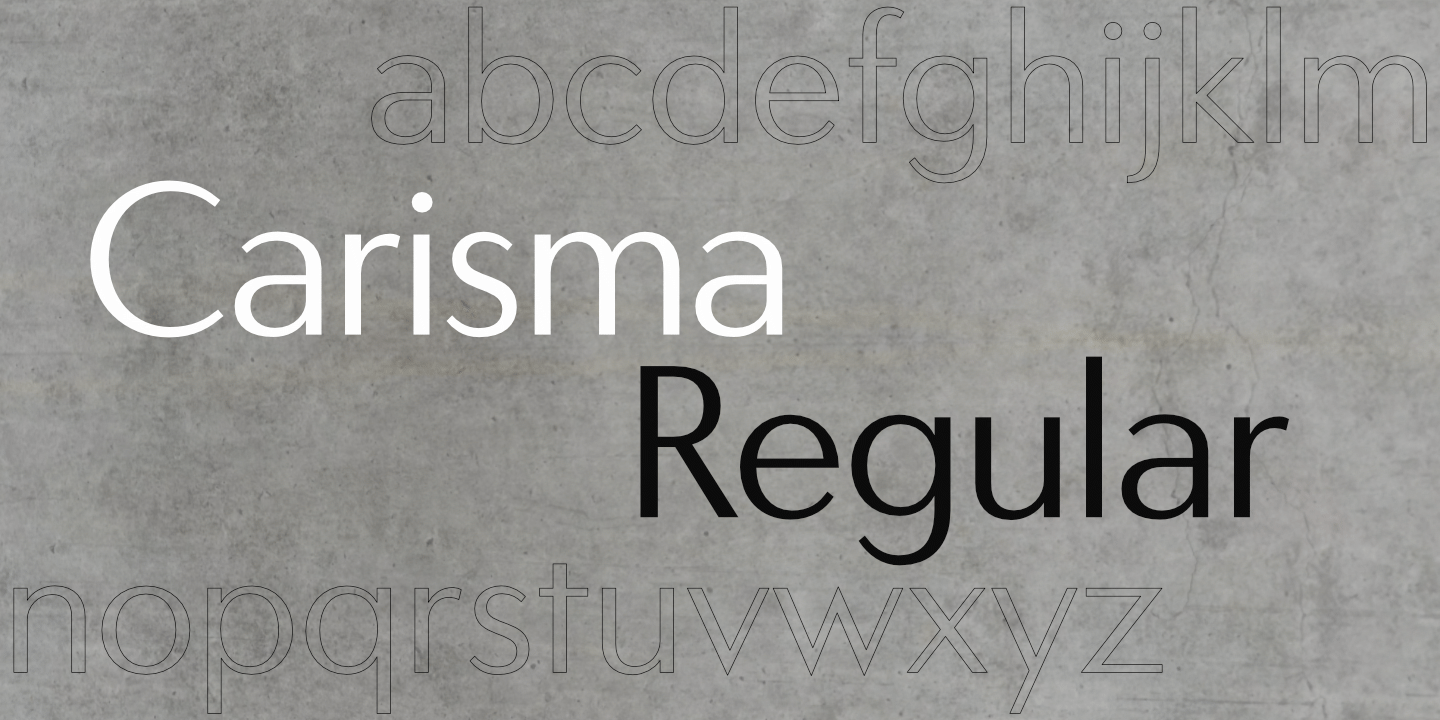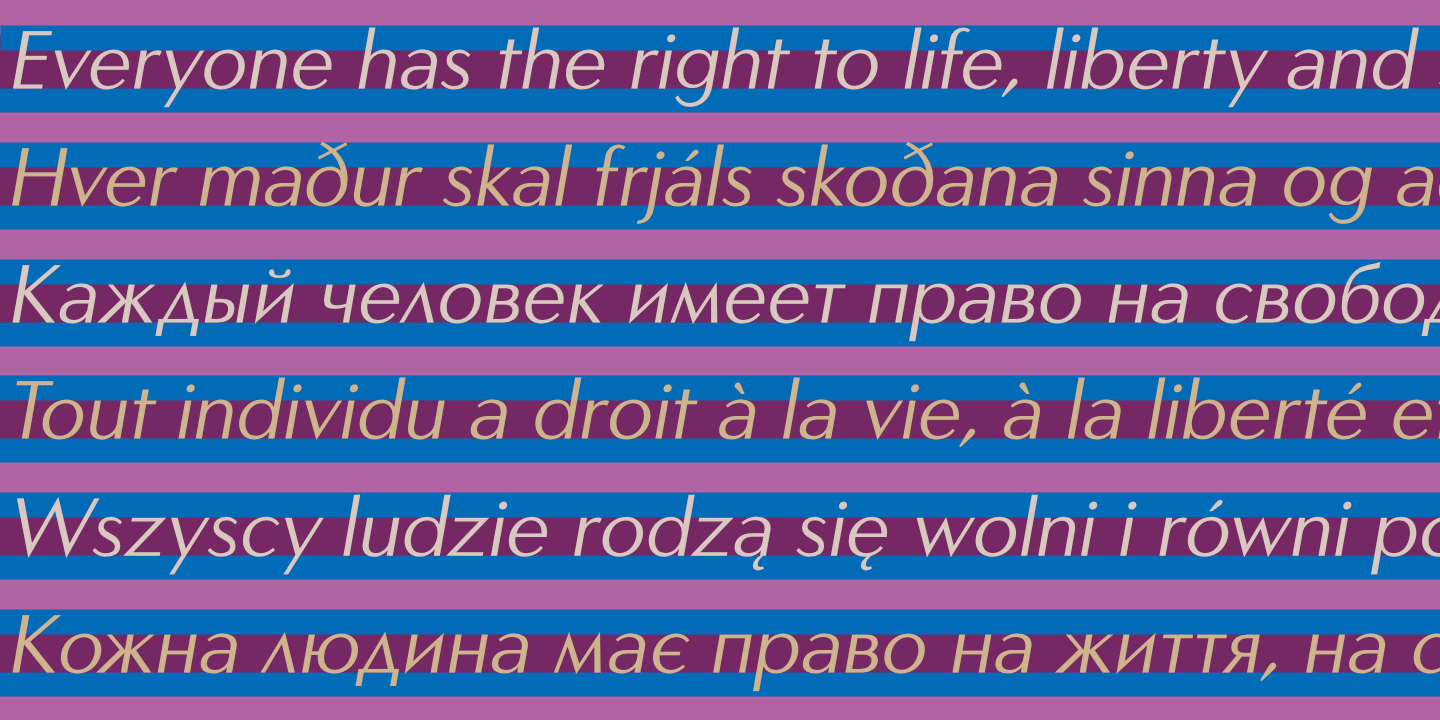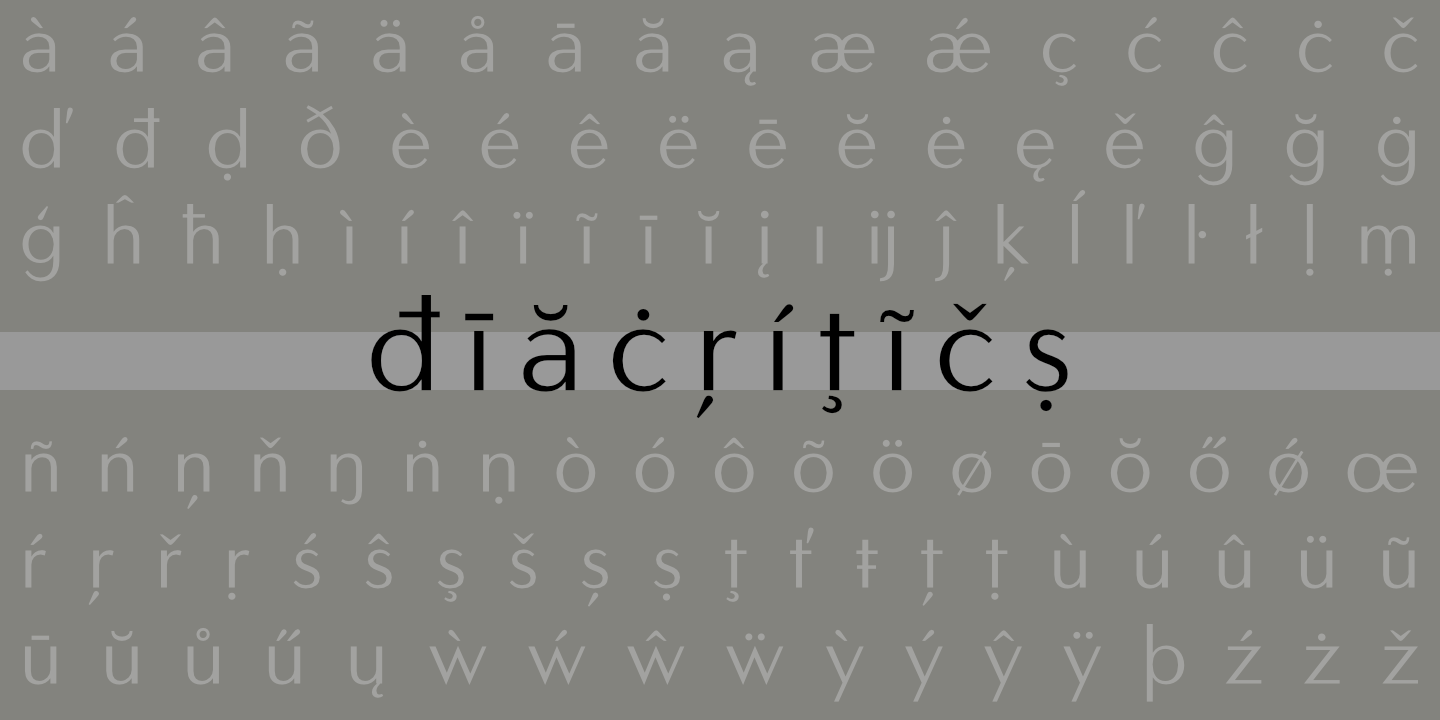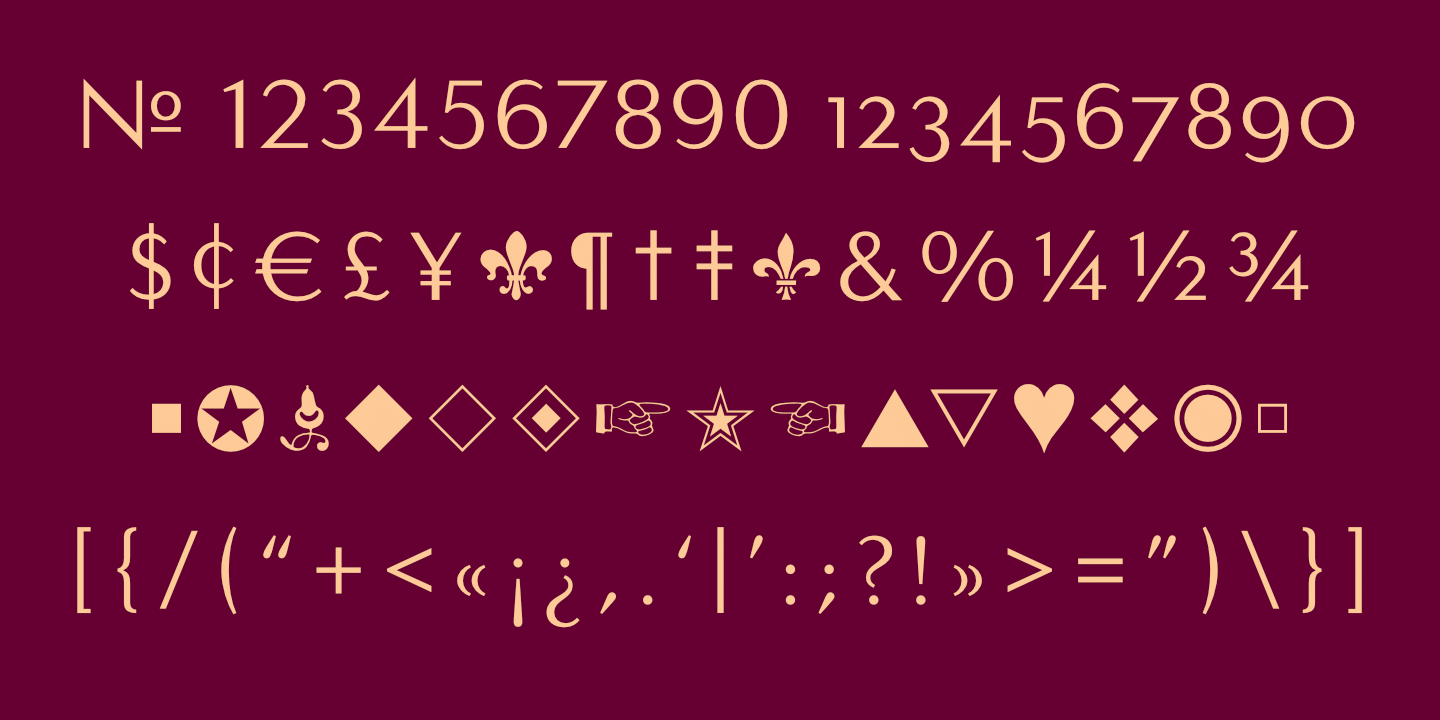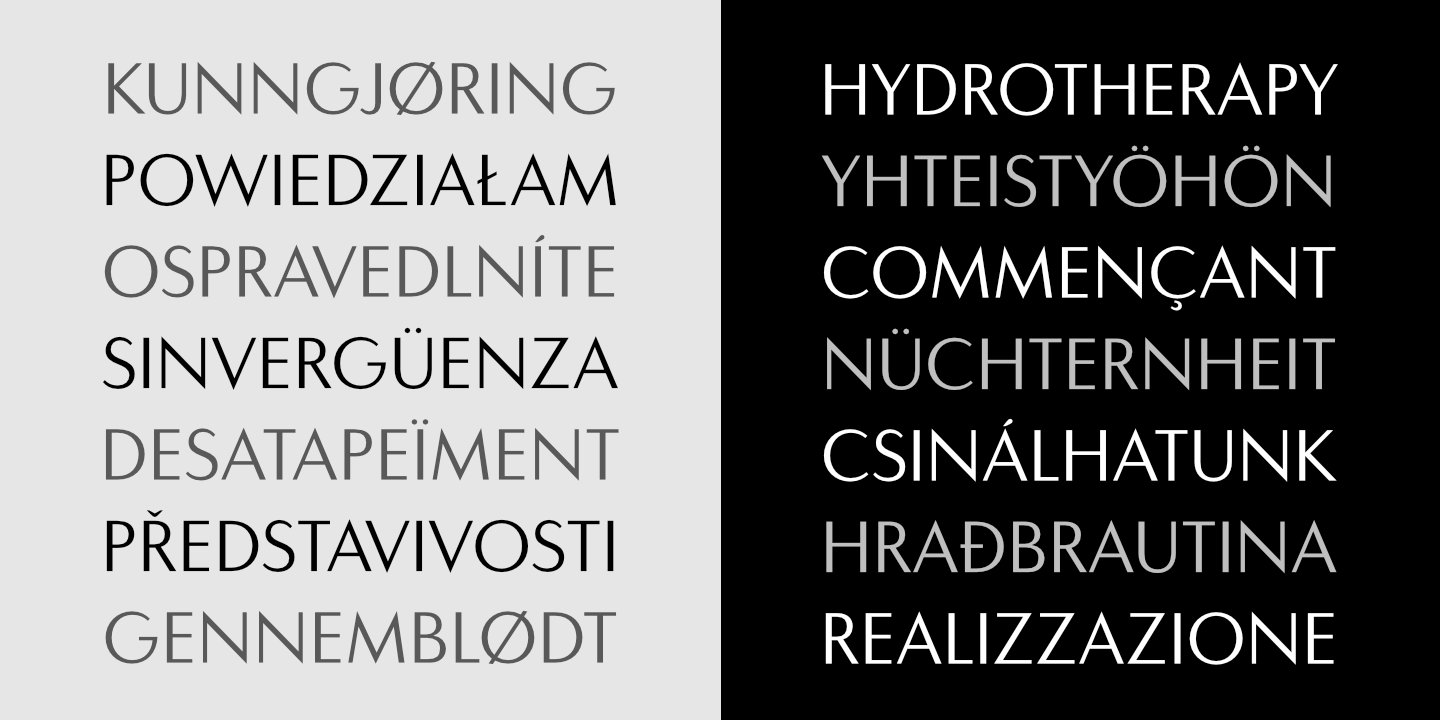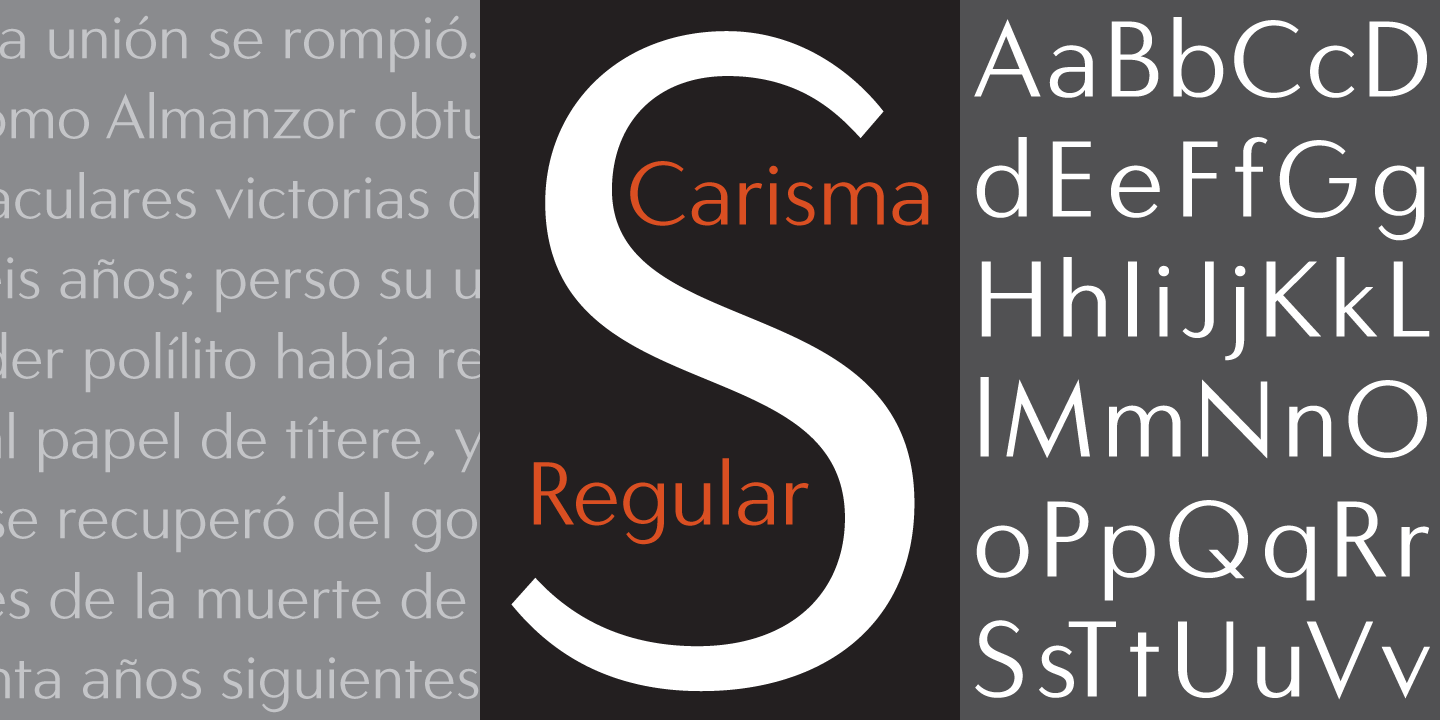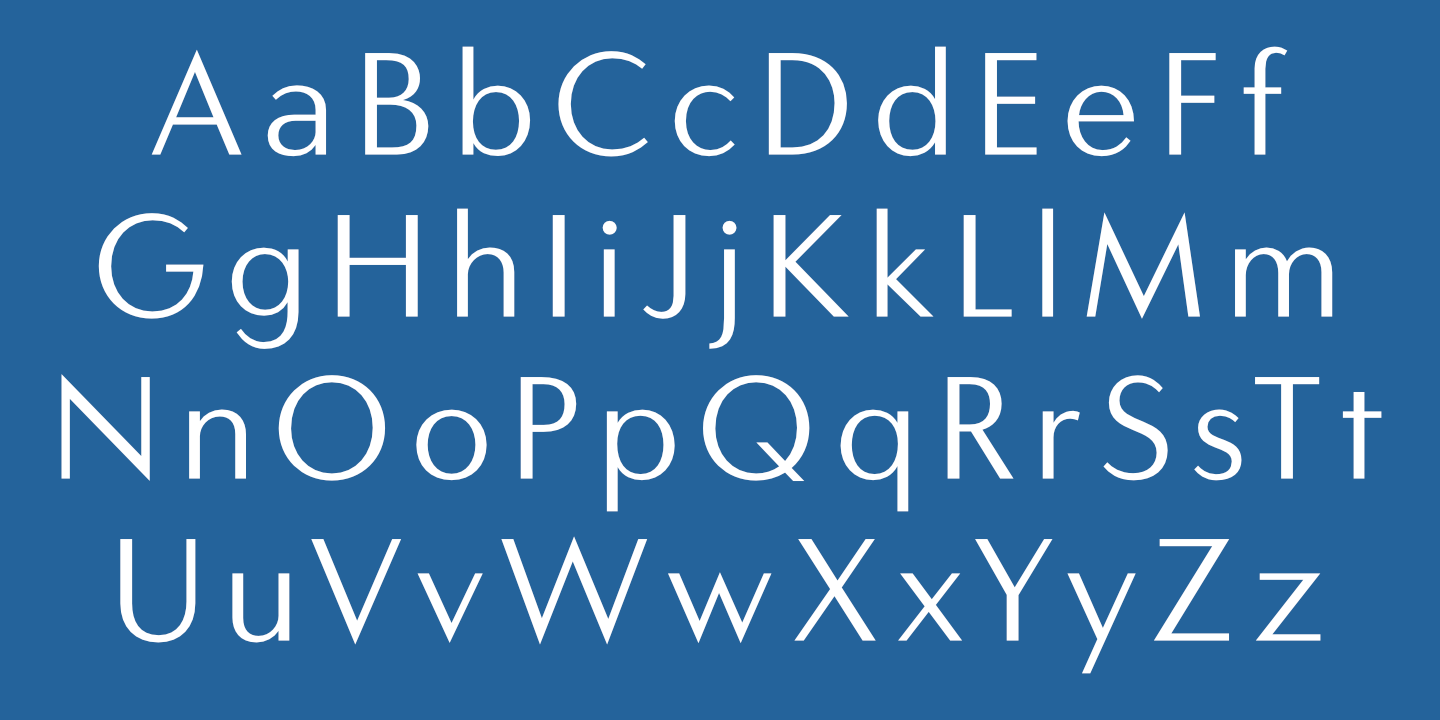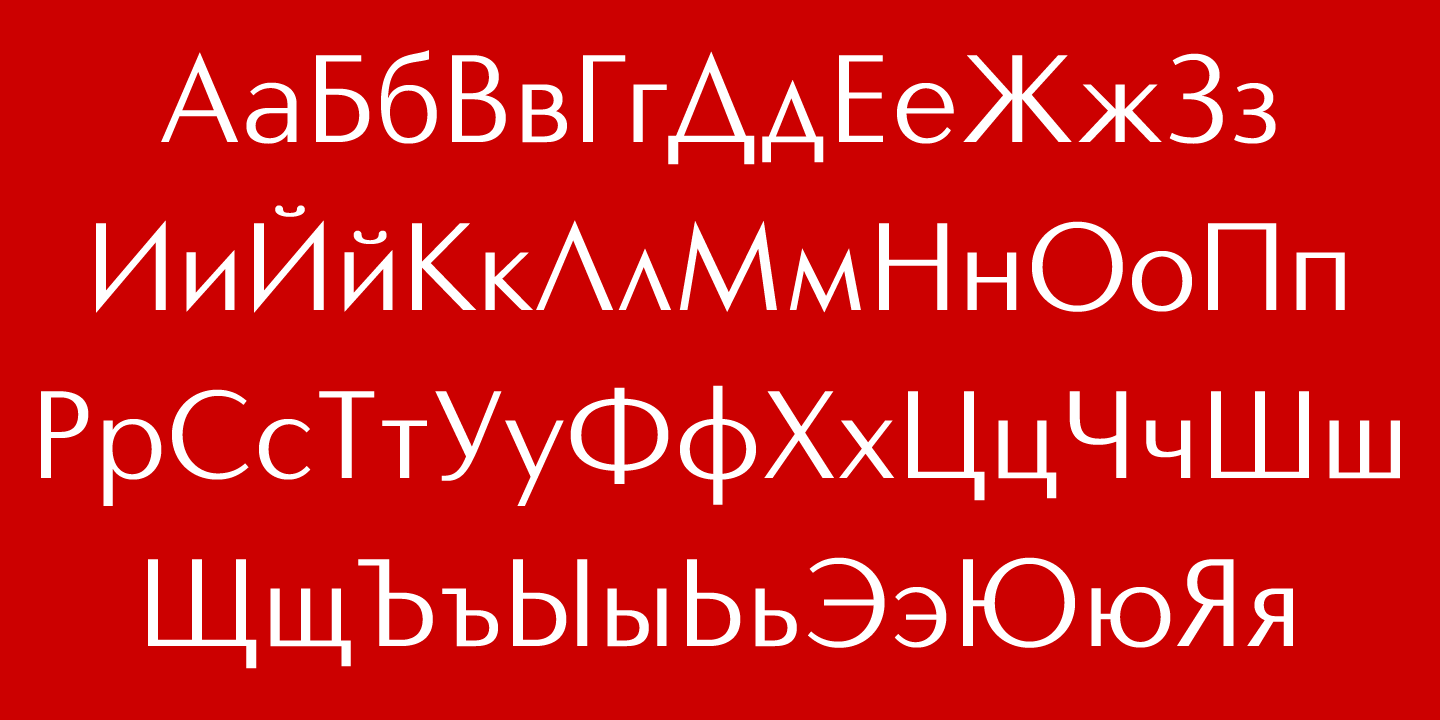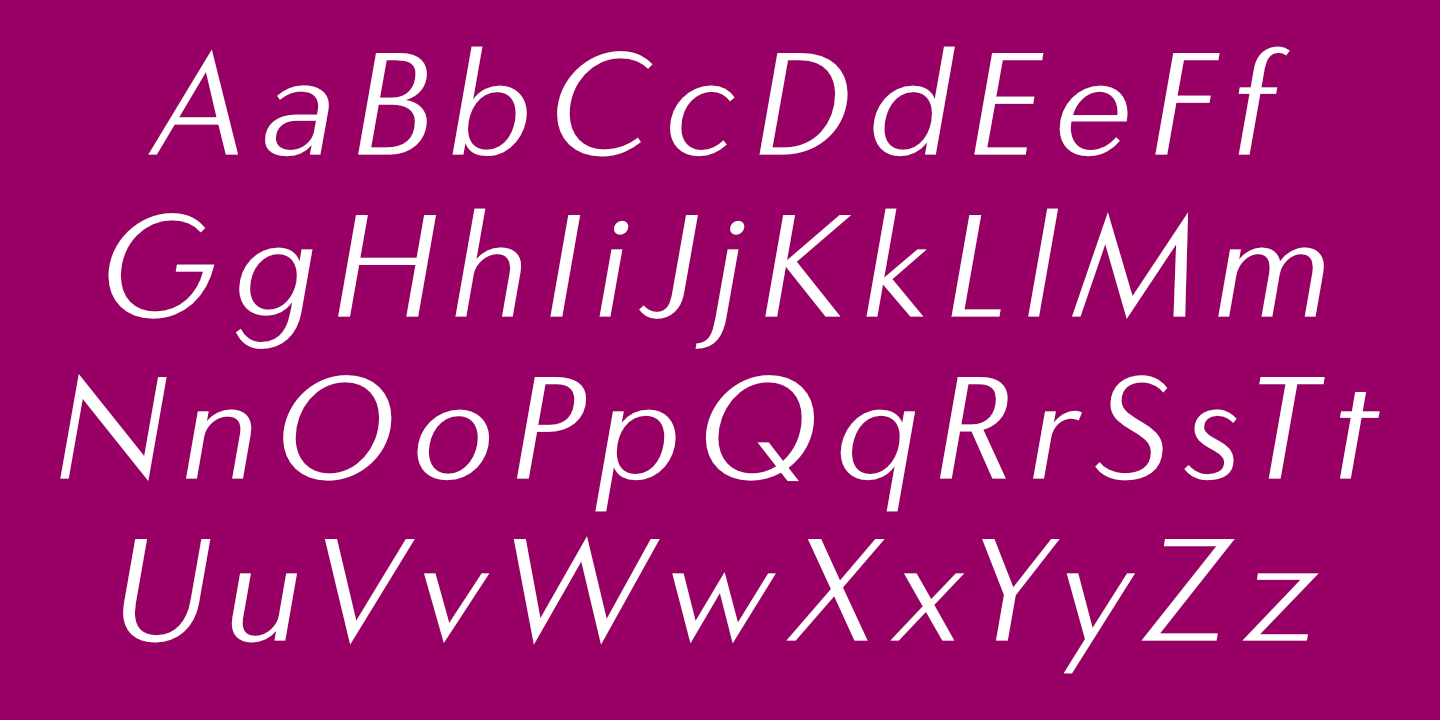
Carisma Classic Regular: Basic Latin alphabet. See Glyphs for details. blank
Carisma Classic Regular Oblique: Basic Latin alphabet. blank
Carisma Classic Regular supports most languages that use the Cyrillic alphabet. See Glyphs for details. blank
Carisma Classic Regular: Numerals, basic punctuation, currency symbols, and a sampling of ornaments.
Carisma Classic Regular and Oblique (below) support most European languages.
Notice that light text on a dark background appears slightly heavier than dark text on a light background. blank
Carisma Classic Regular as used on an office window in Germany. Notice the very large outline letters. blank
The Carisma Classic family includes an oblique version of each weight.